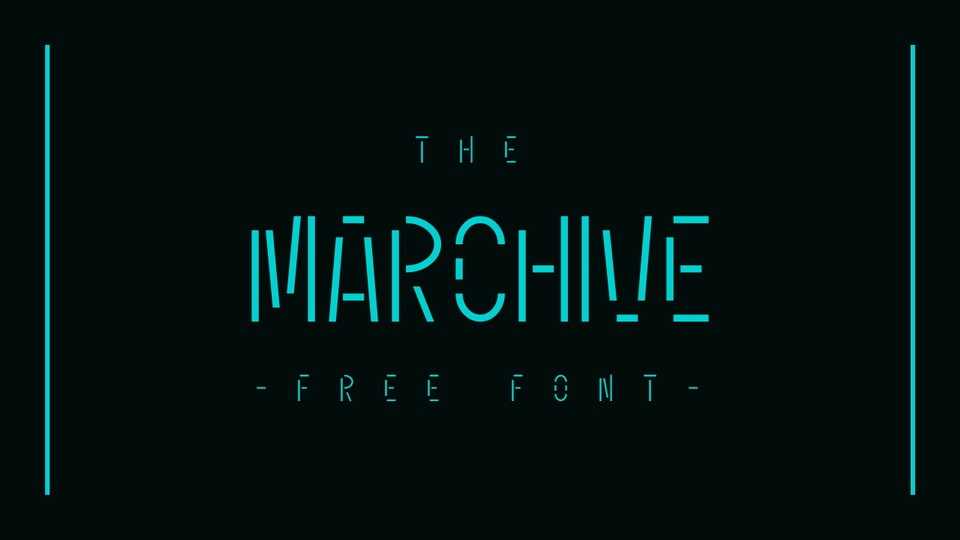
Download Marchive font, a futuristic display typeface with segmented, stencil-like letterforms inspired by space exploration and cutting-edge technology.